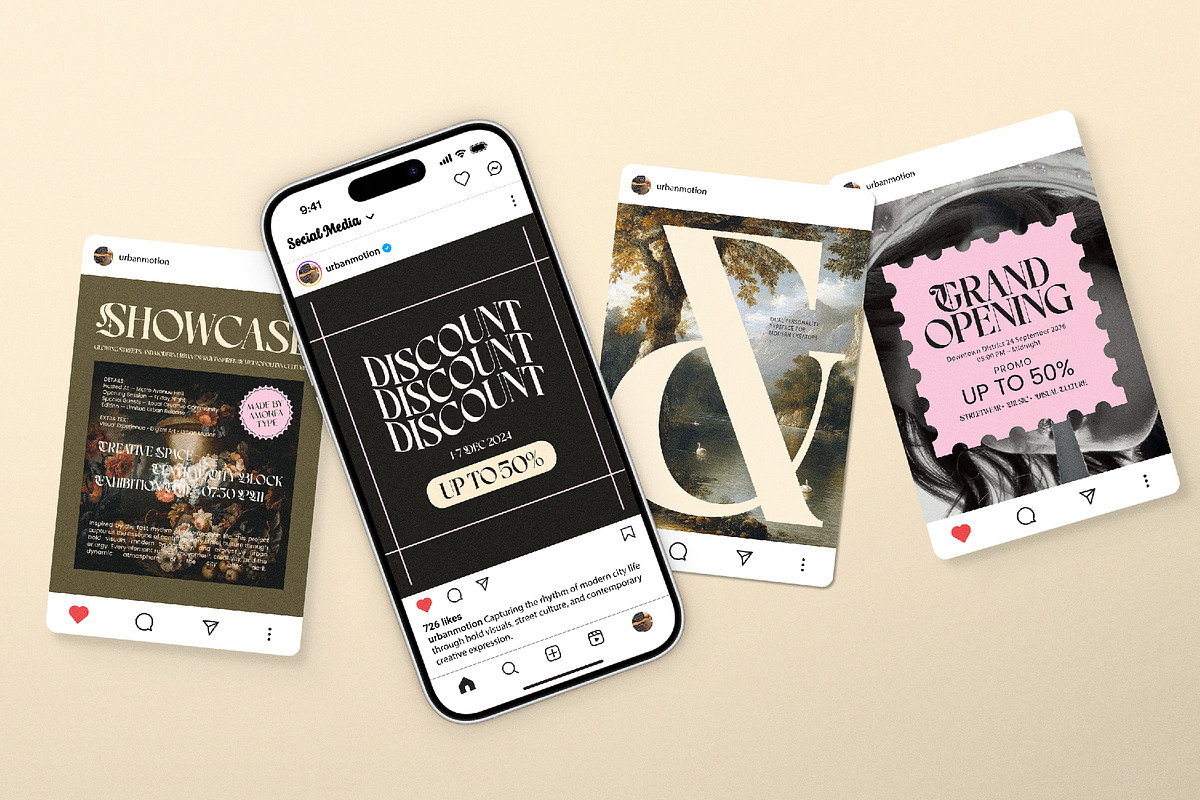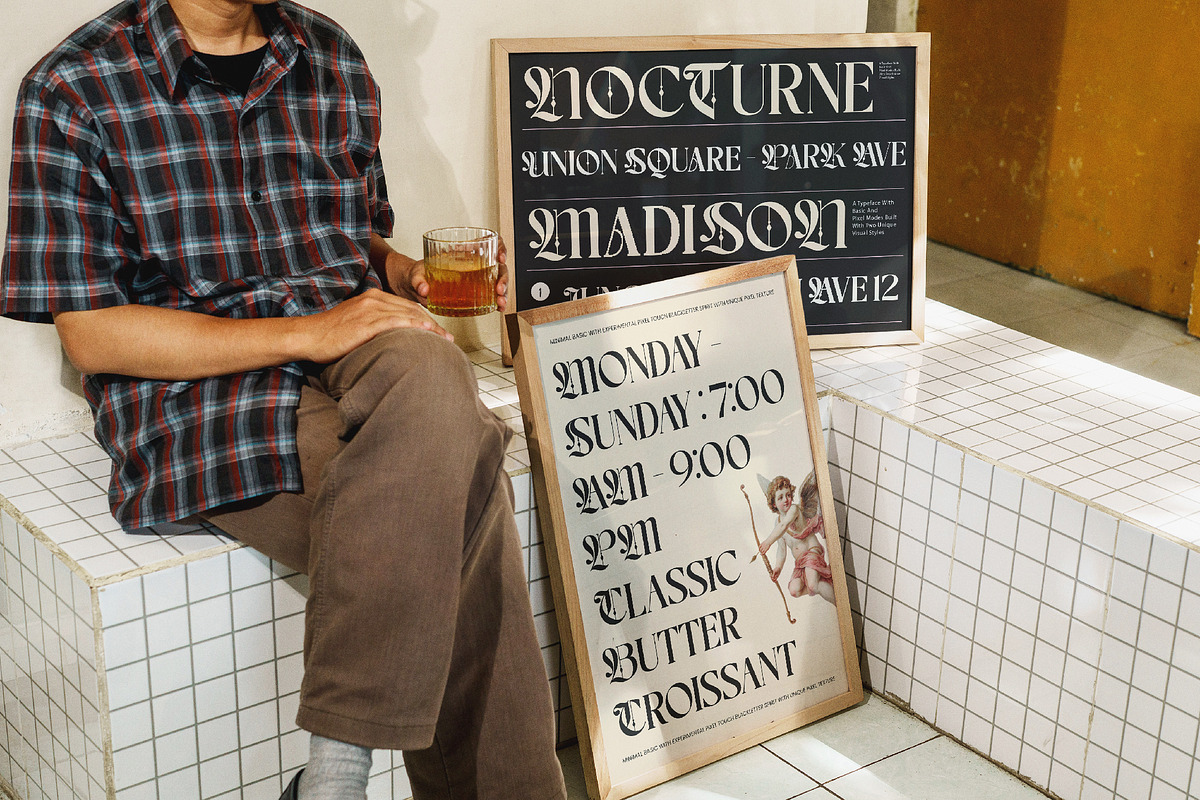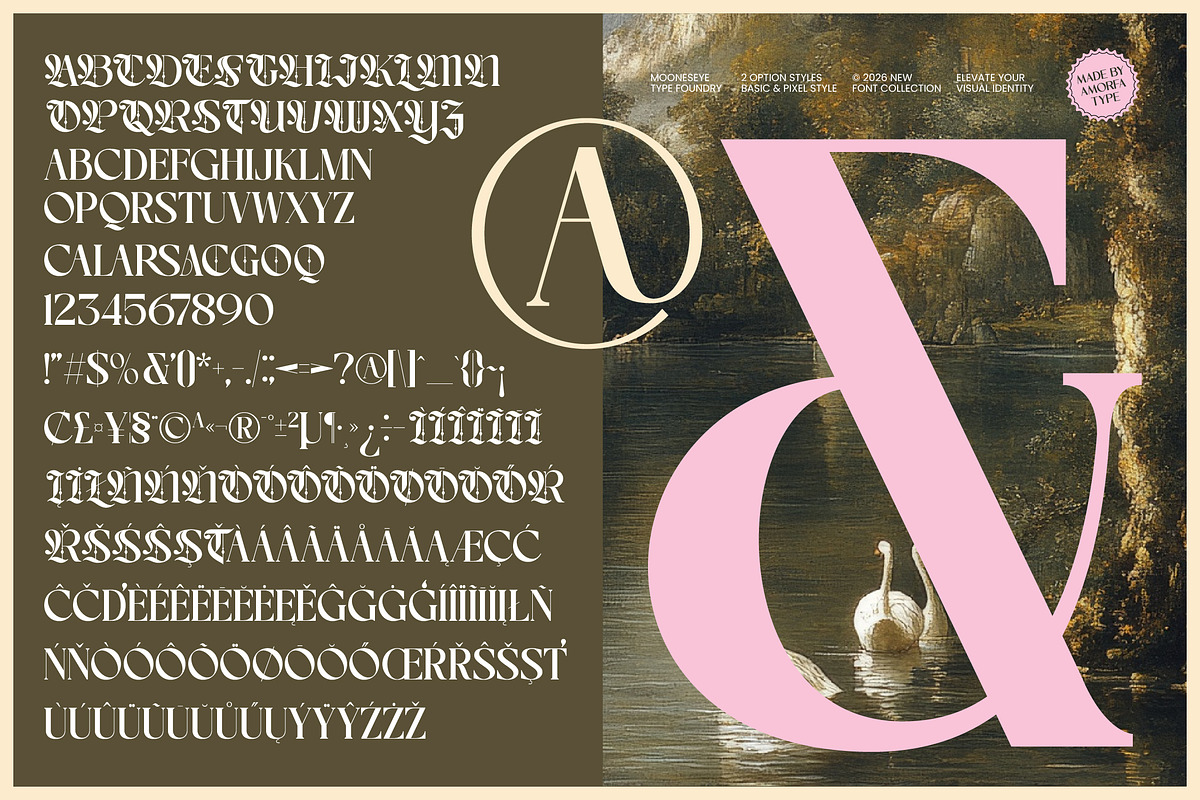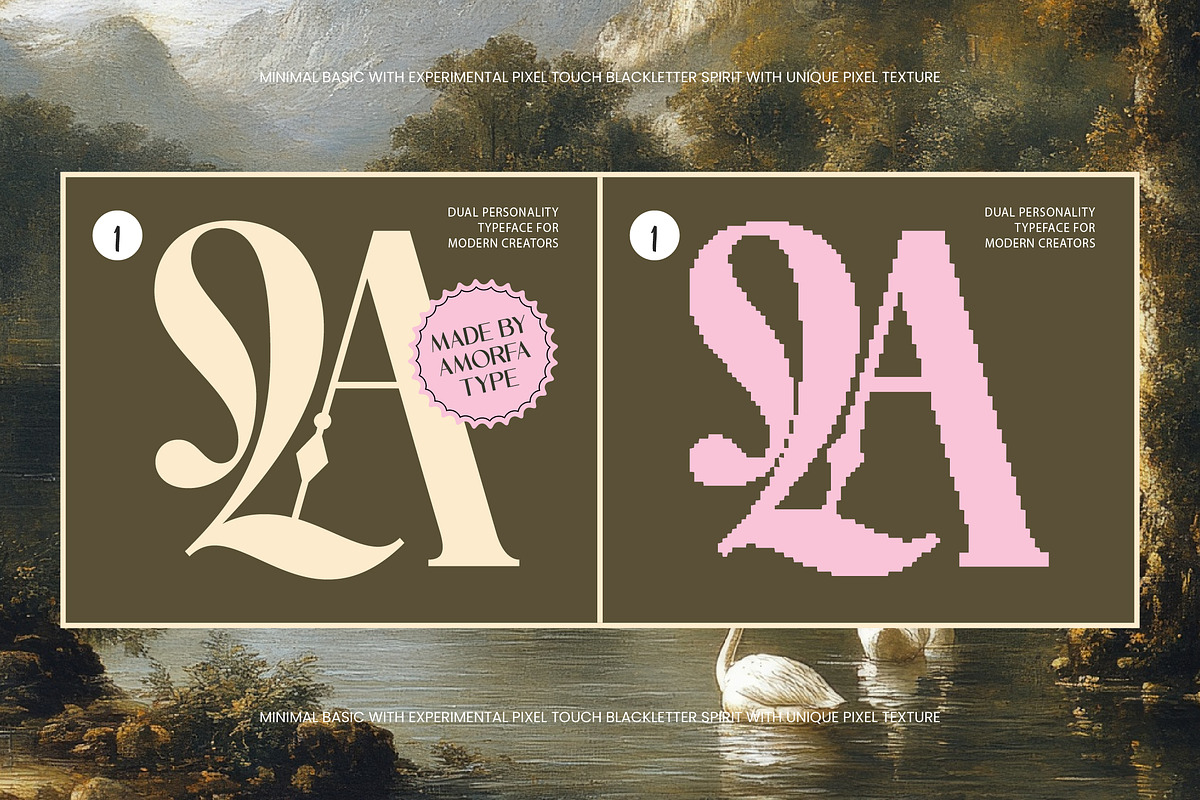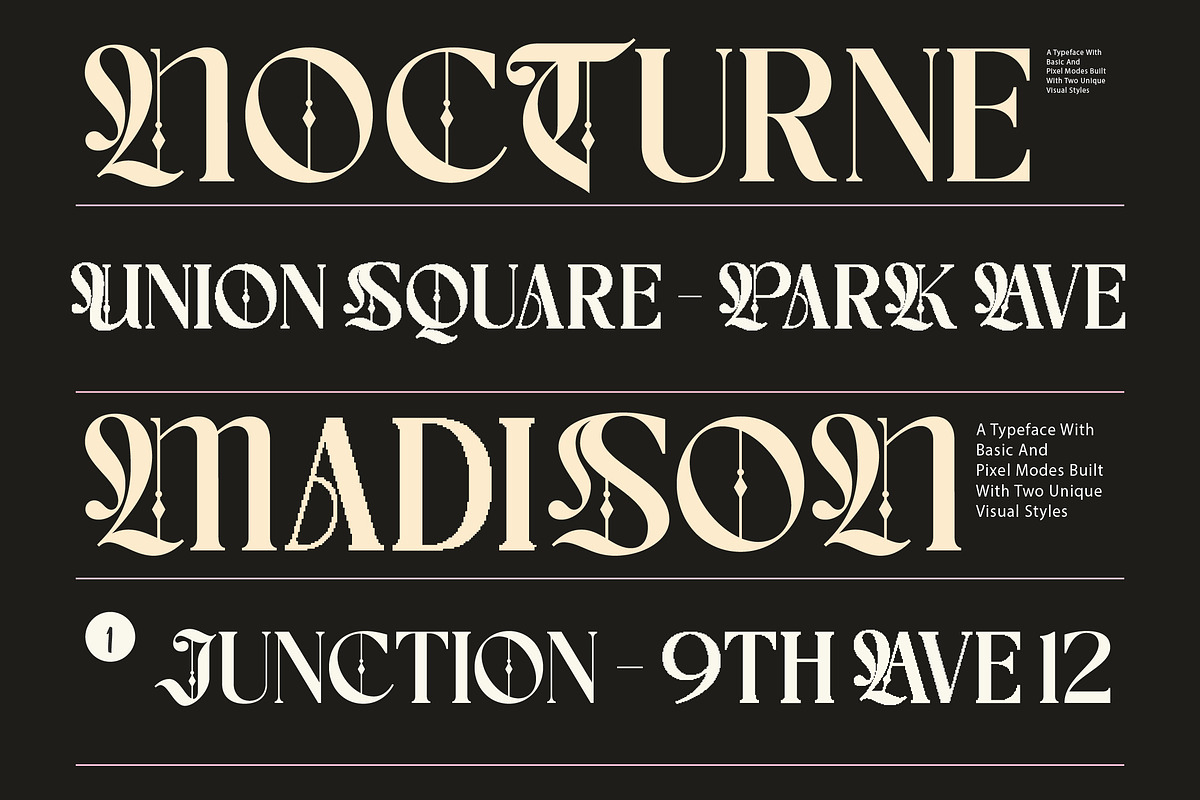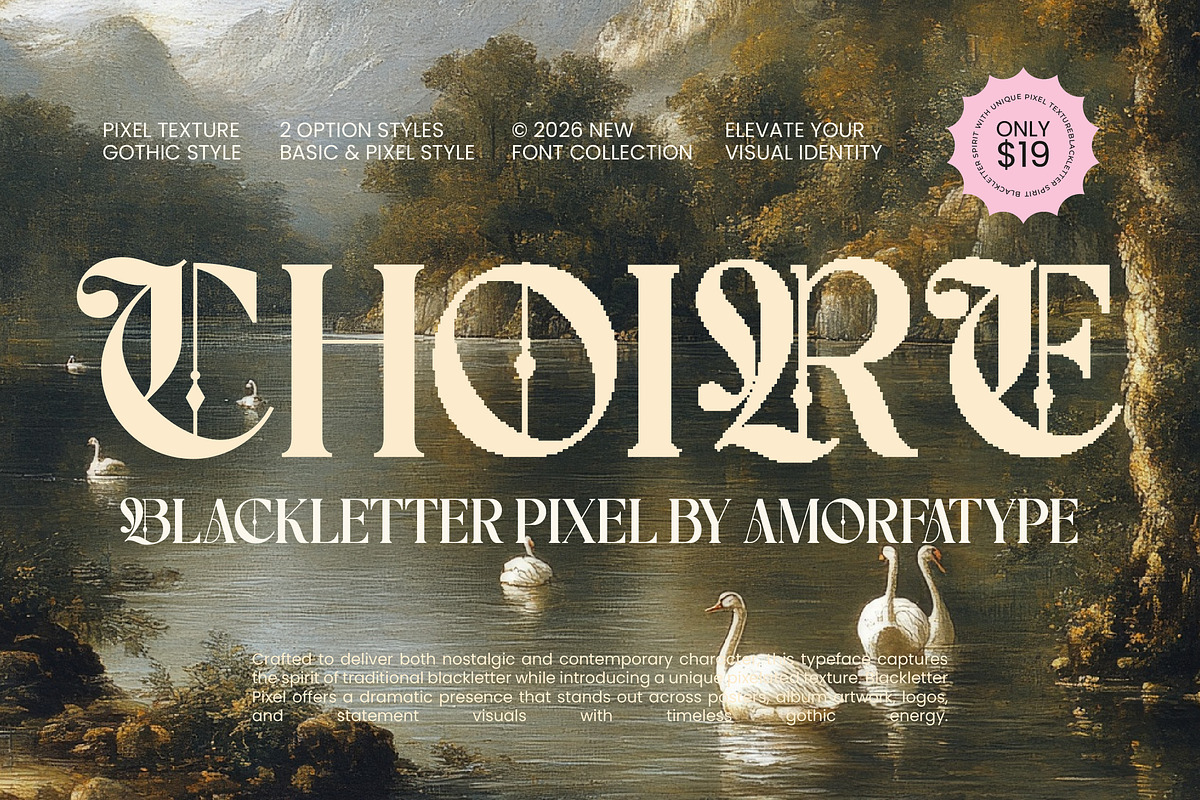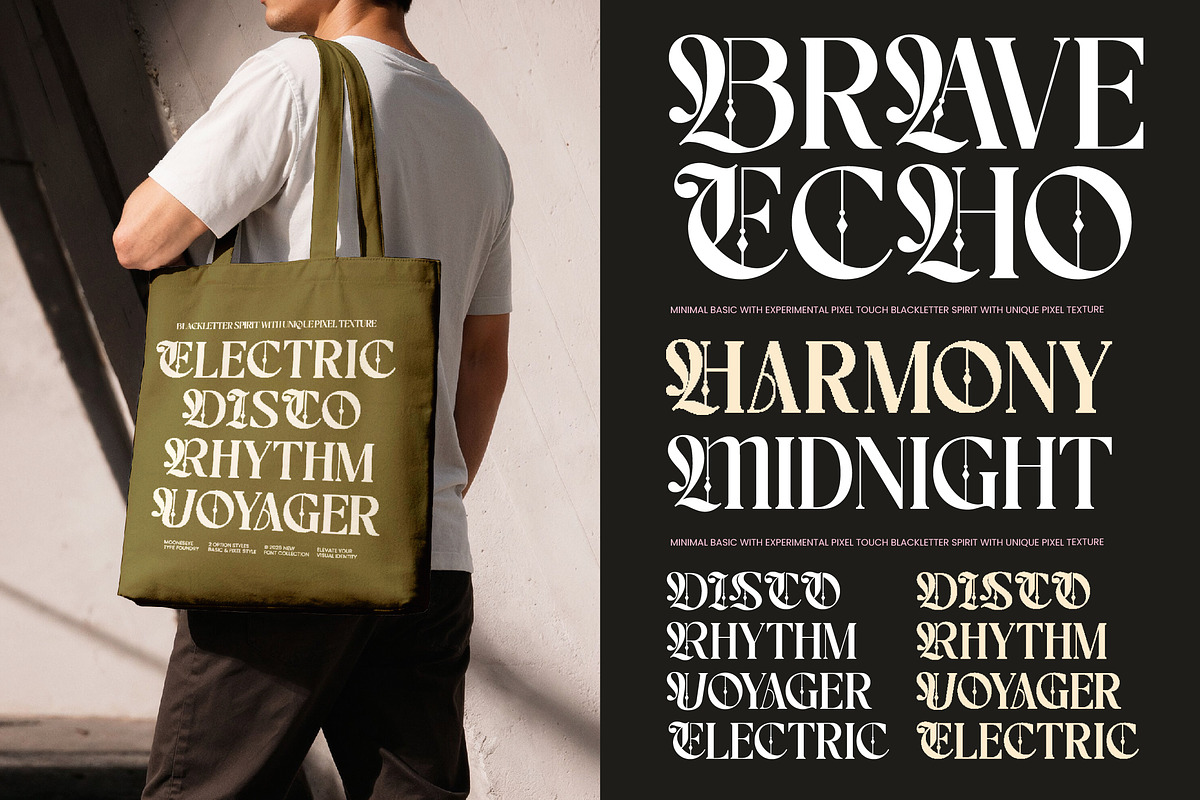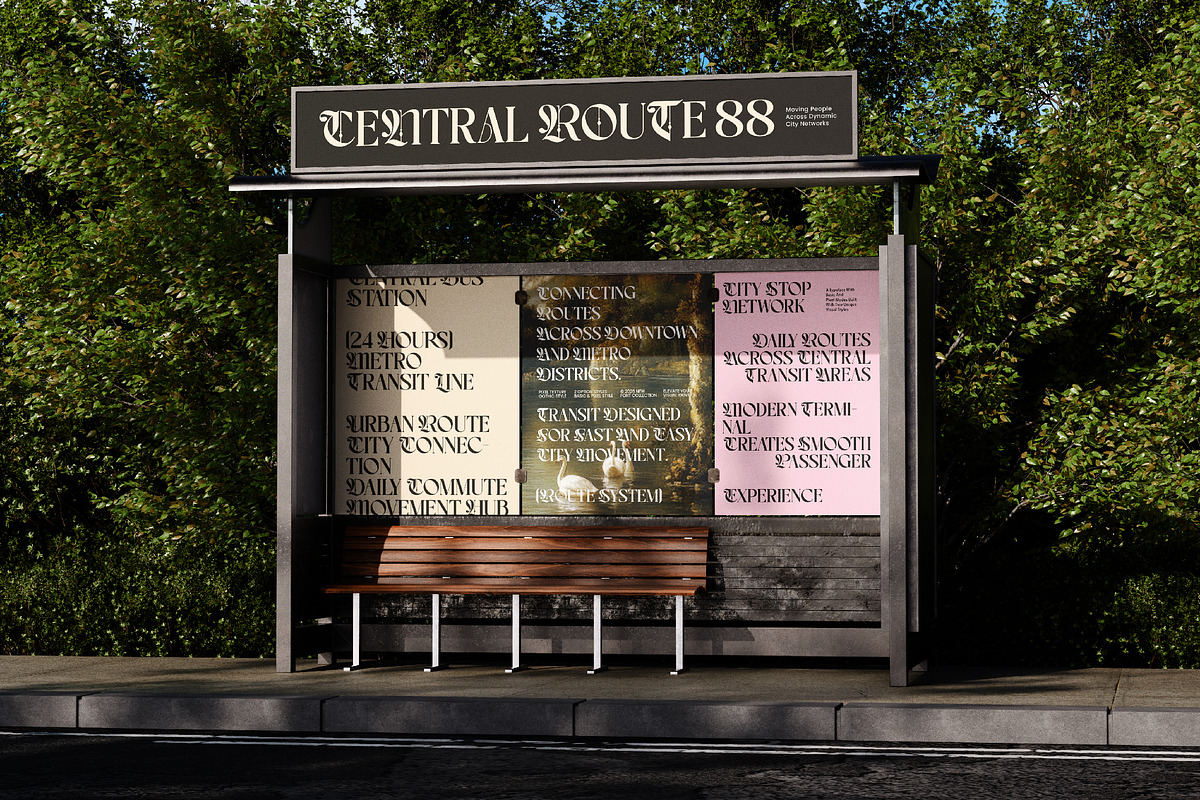
Choire Blackletter Pixel Display
Choire is a blackletter pixel font that combines classic gothic aesthetics with retro digital pixel styling. Inspired by medieval blackletter typography and old-school bitmap visuals, this font delivers a bold, unique, and experimental look for modern creative projects.
Equipped with stylistic alternates, ligatures, and multilingual support, Choire offers more flexibility for creating strong and eye-catching typography compositions. The sharp pixel structure and gothic letterforms make this font perfect for posters, branding, album covers, gaming visuals, streetwear, editorial layouts, merchandise, and experimental display design.